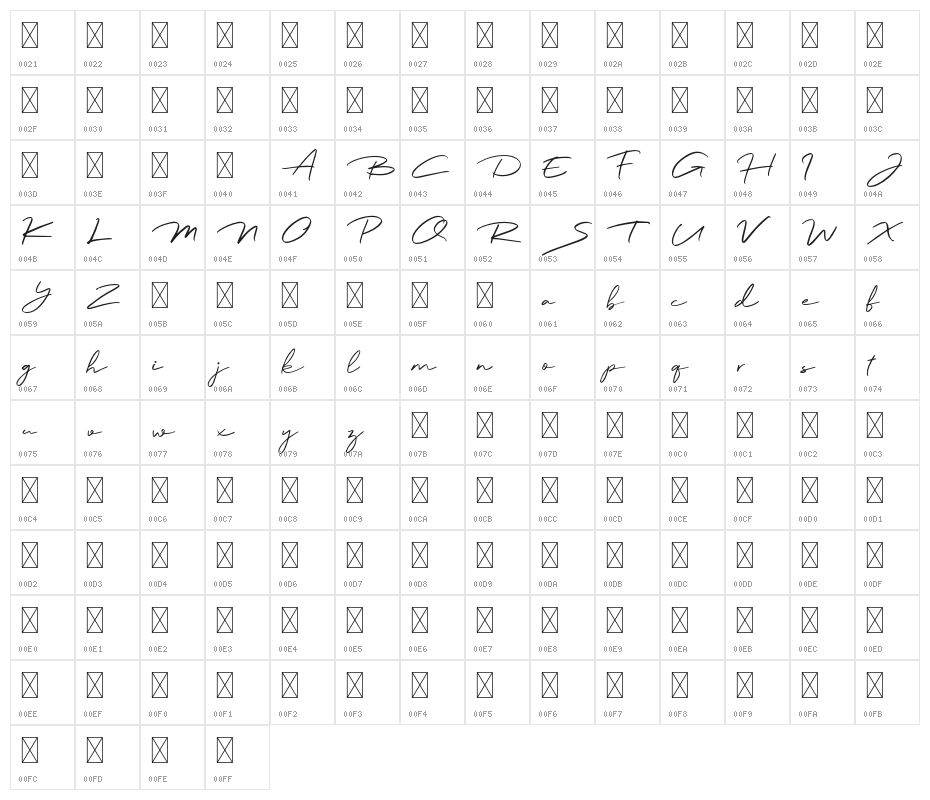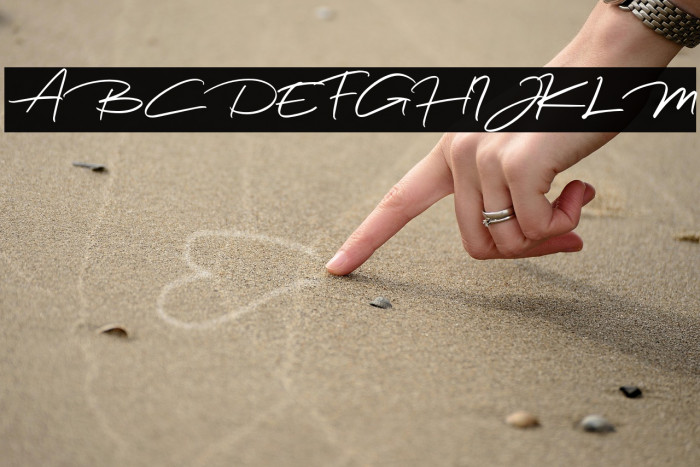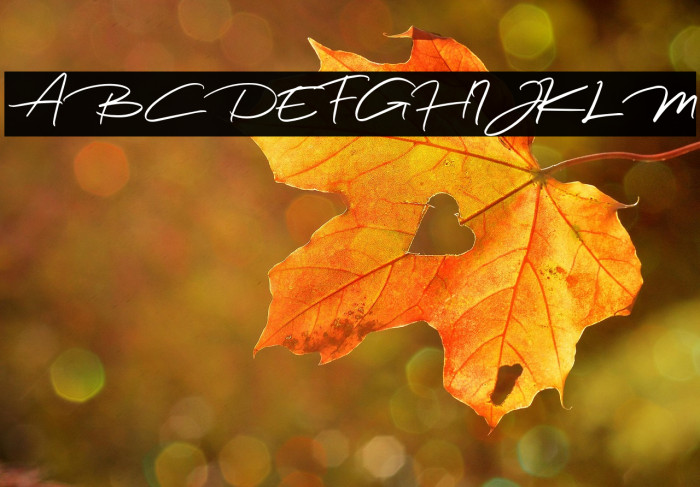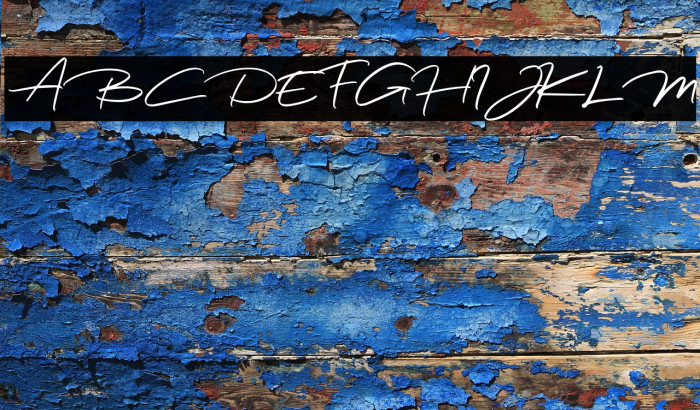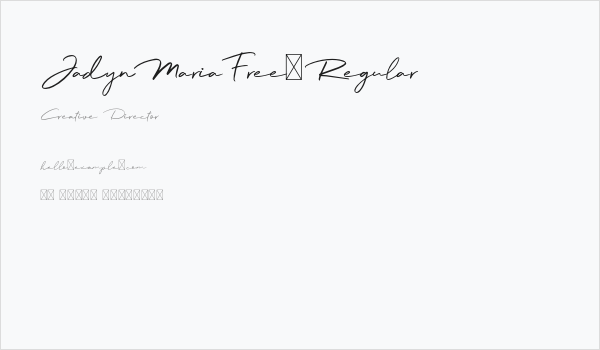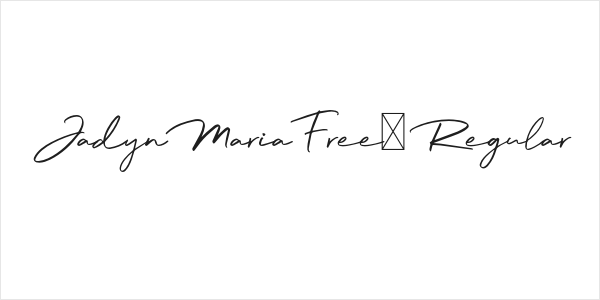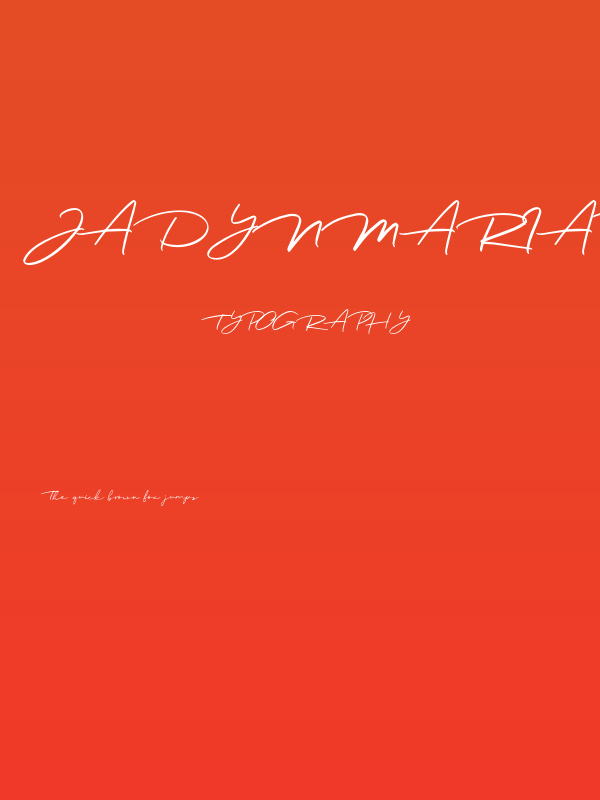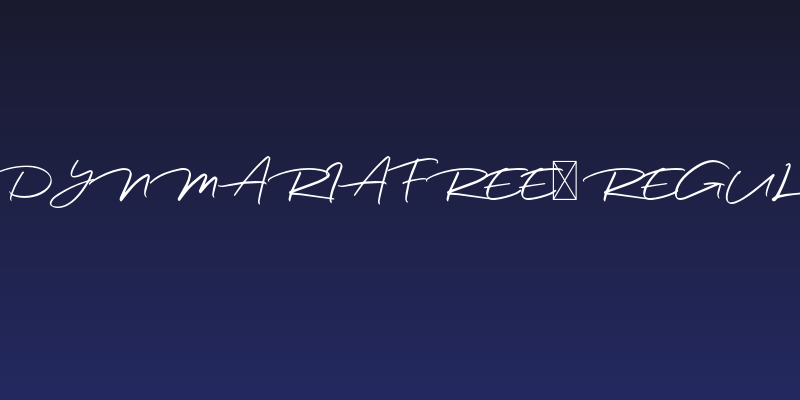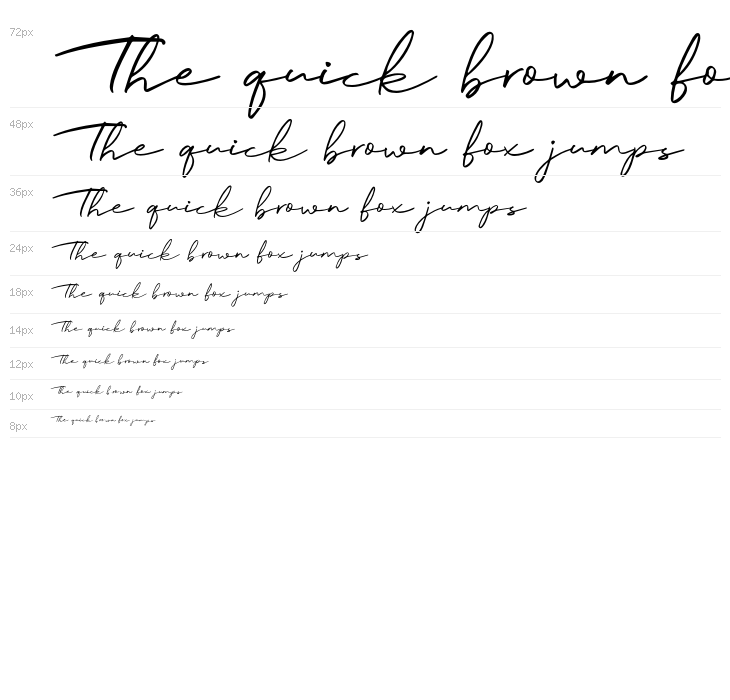
JadynMariaFree-Regular Font
JadynMariaFree-Regular Description
This font features a flowing, cursive style that exudes elegance and sophistication. The letters are connected in a smooth, continuous manner, reminiscent of traditional handwriting. The uppercase letters maintain a consistent height, while the lowercase letters have a slight slant, adding to the dynamic and fluid appearance. The strokes are thin and delicate, contributing to a light and airy feel. This font lacks special characters, focusing solely on the alphabet, which enhances its clean and uncluttered look.